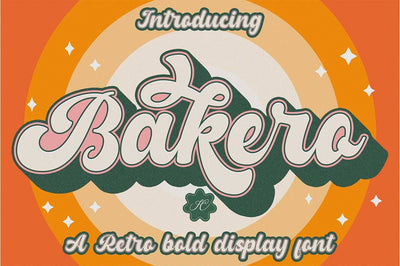
Bakero Retro Font
Introducing Bakero Retro font it’s inspired by retro lettering poster and vintage typography in 80s combined with a bold font style.will bring you back to nostalgia. This typeface is perfect for logos, logotypes, t-shirts, vintage badges, retro quotes, branding, packaging, posters, etc.
- Ton Alternate Letters
- Ton ligatures